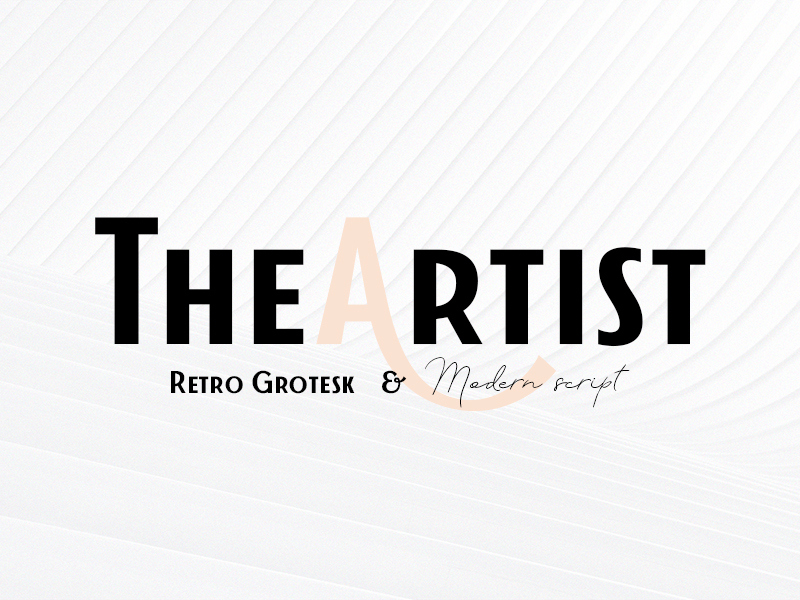
The Artist Font Duo
Welcome a cinematographical font duo – The Artist by Made Type, embracing retro grotesque and modern script typefaces with all extras you want from high-quality typography.
Start using The Artist and designing your posters, websites & apps, stationery, t-shirts and tote bags with an absolute artistic freedom, 100% unique and extraordinary.